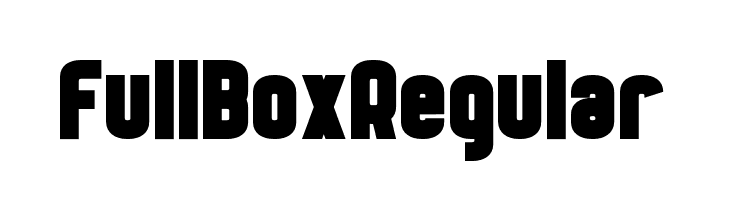
A bold, blocky font with a modern yet slightly retro style.
A bold, geometric outline font with a modern and structured appearance.
A playful, handwritten font with smooth, flowing lines and a whimsical style.
A playful, handwritten font with tall, narrow characters and a casual vibe.
A playful, bold font with quirky, rounded characters.
A playful, hand-drawn font with a whimsical and casual style.
A bold, geometric font with angular shapes and a modern, cohesive design.
A playful, handwritten font with a casual and approachable style.
A playful, handwritten font with rounded edges and a casual, friendly style.
A lively and elegant script font with flowing cursive letters.